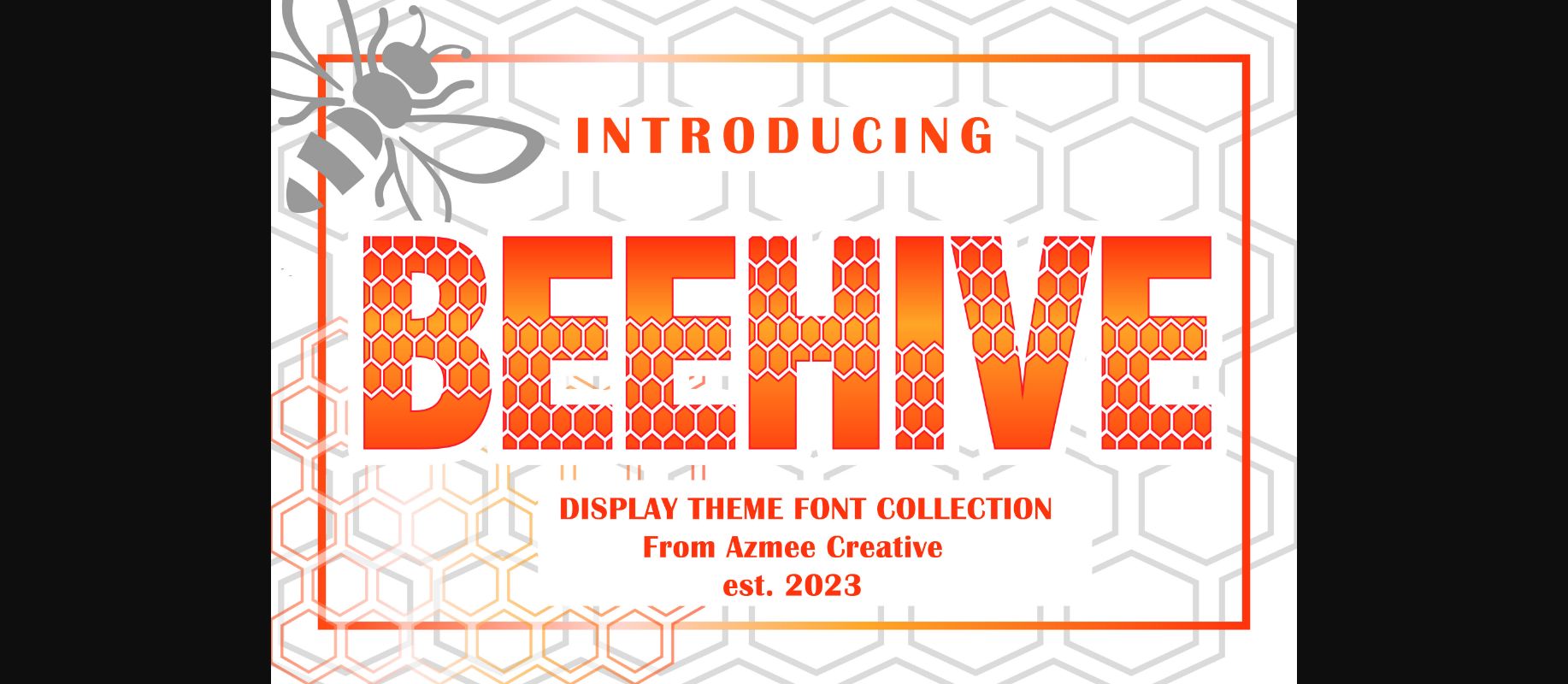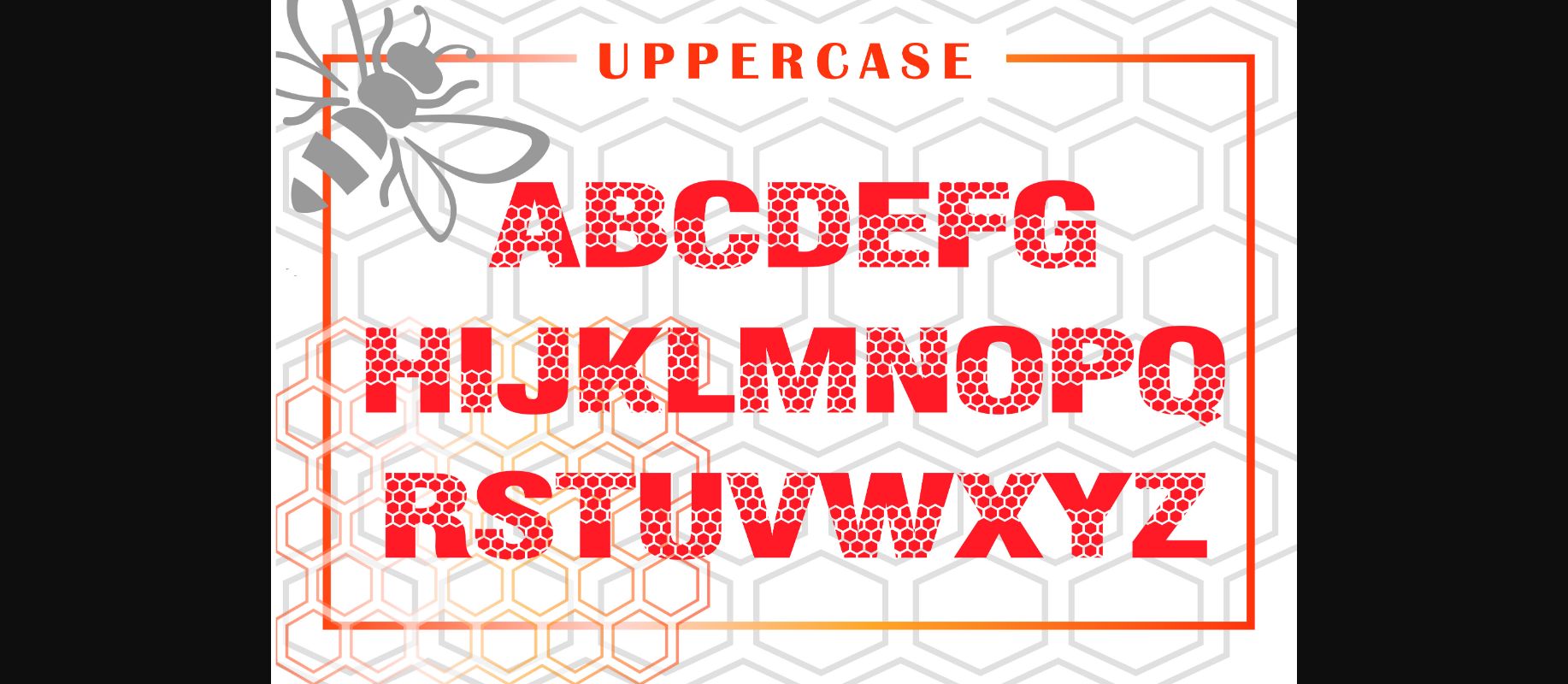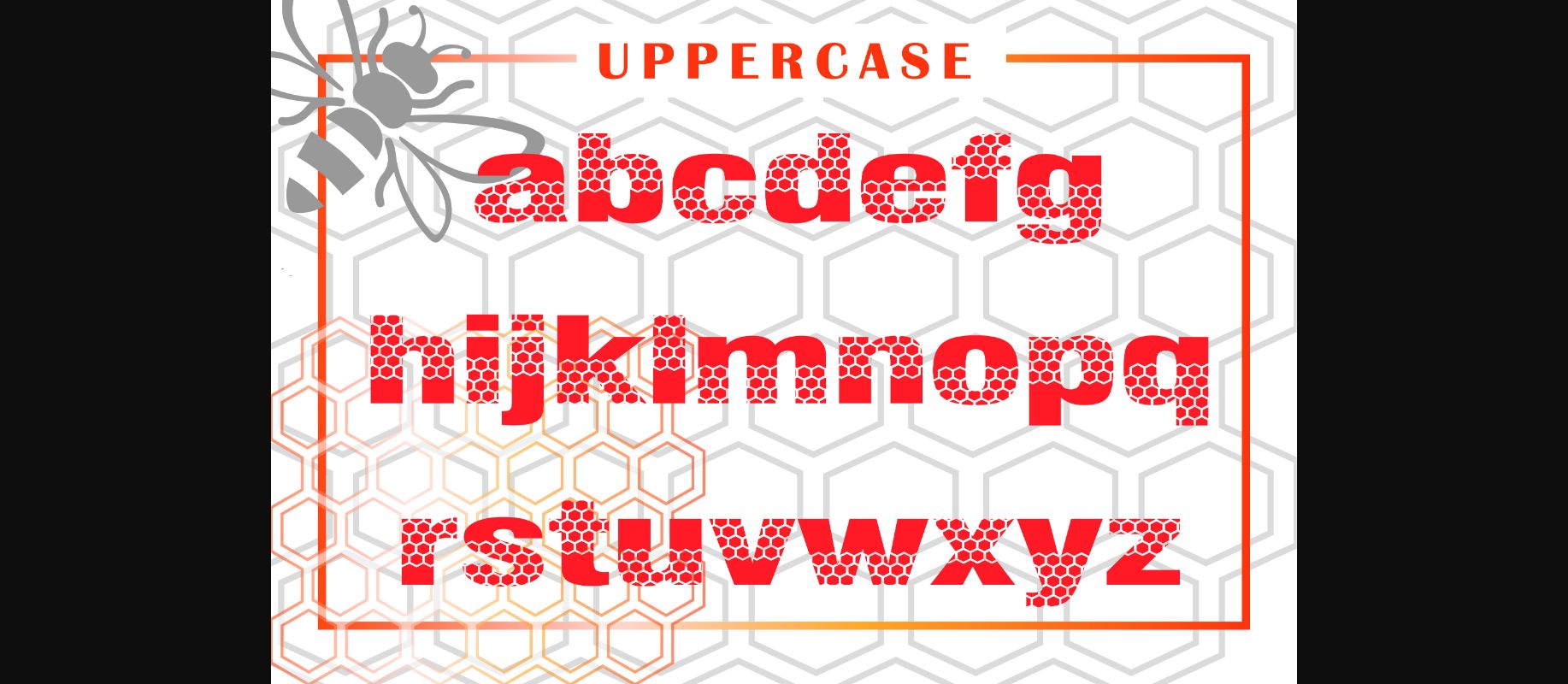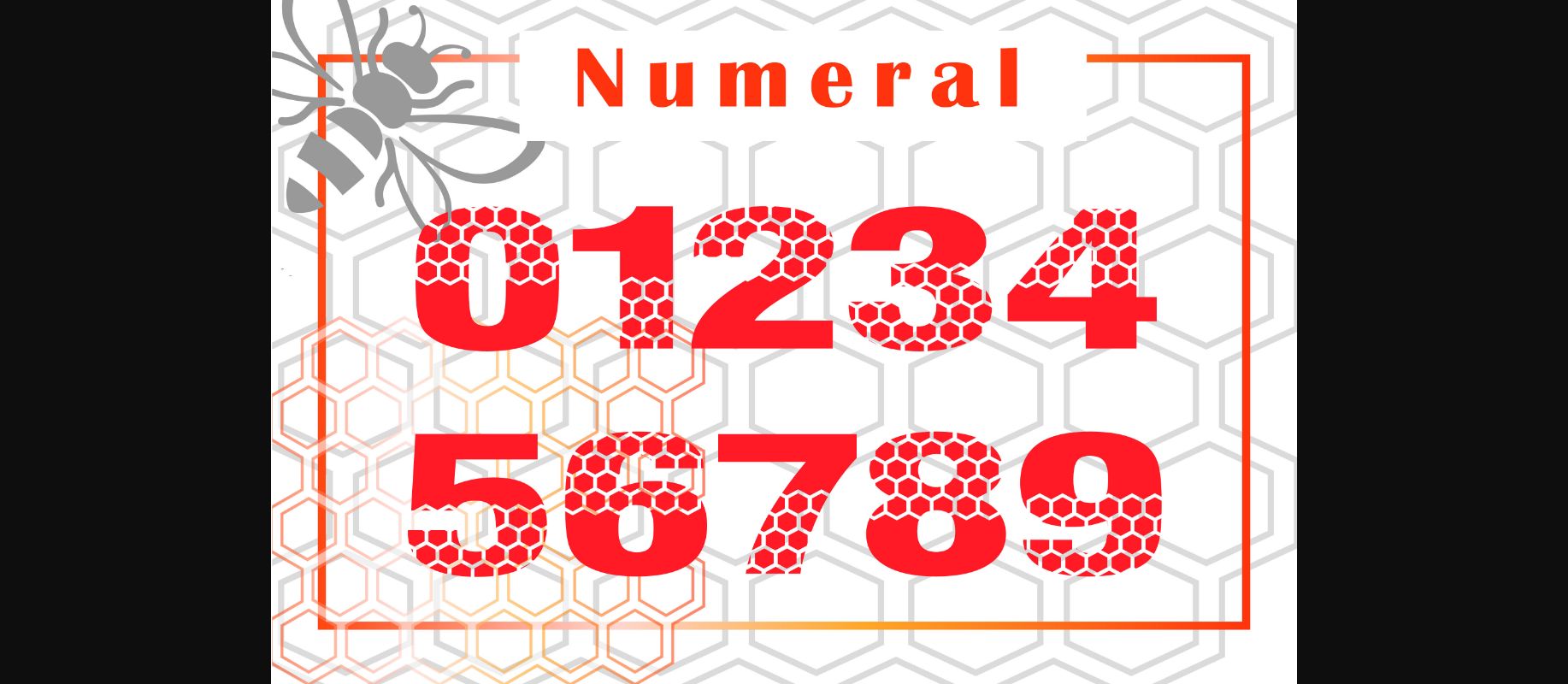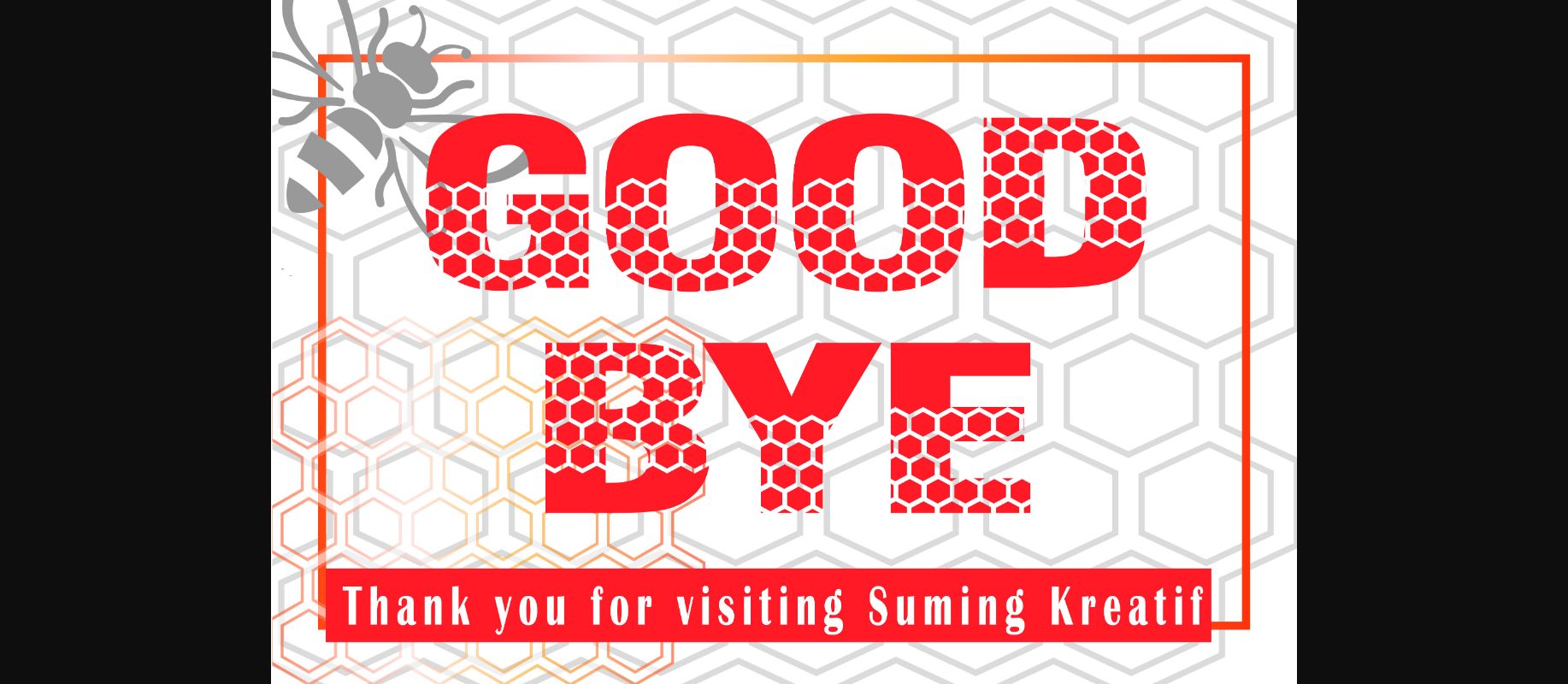
About Beehive Font
Beehive is a neat and beautiful handwritten font described by an elegant touch, perfect for your favorite projects
Fall in love with its incredibly distinct and timeless style, and use it to create spectacular designs!